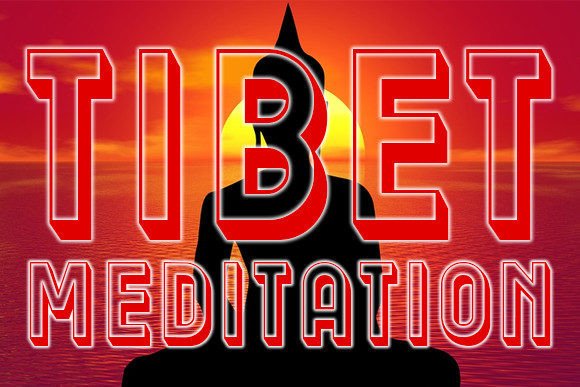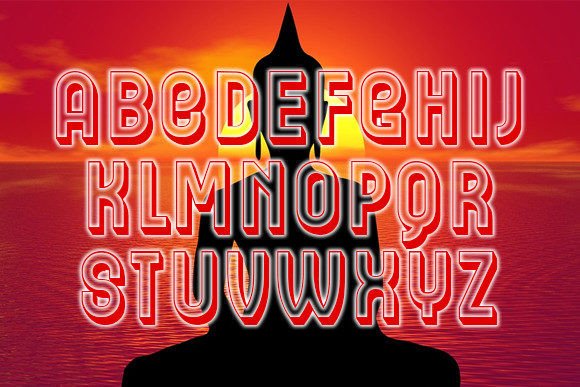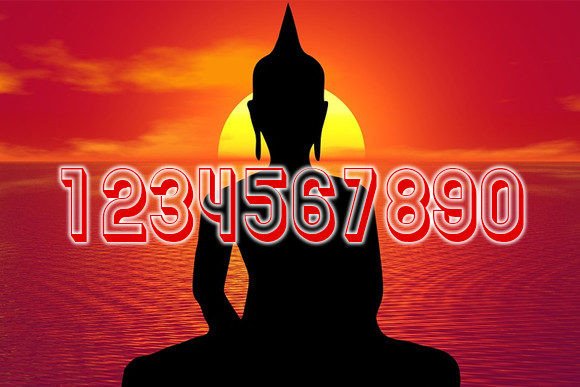
Unleash Your Creativity with the Majestic Ajanta Font
Have you ever found yourself stuck in a creative rut, staring blankly at your screen, trying to come up with the perfect design? It’s a feeling we’ve all experienced at some point, but it’s exactly this moment that sparked the creation of the breathtaking Ajanta Font. This elegant 3D display font is designed to elevate your designs and leave a lasting impression.
Whether you’re working on a poster, flyer, or t-shirt design, the Ajanta Font is the perfect tool to help you take your creative vision to the next level. Its unique blend of style and sophistication makes it an invaluable asset for designers looking to make a statement. With the Ajanta Font, you’ll be able to add a touch of luxury and sophistication to your designs, setting you apart from the crowd.
Ajanta Font Key Features
- Font Family: Ajanta is a sans-serif font family with multiple weights and styles, including regular, bold, italic, and bold-italic.
- Unique Characteristics: Ajanta’s distinctive features include its clean and modern design, geometric shapes, and a high x-height, making it highly legible and suitable for digital and print applications.
Ajanta Font Review
I’ve had the chance to work with the Ajanta font, and I must say it’s a unique find. Let’s break down what I think works well and what doesn’t.
- Unique Style: Ajanta font brings a distinctive touch to any design project. Its intricate details and organic feel set it apart from more common fonts.
- Legibility: Despite its complex design, the font is surprisingly easy to read, especially in larger sizes.
- Language Support: Ajanta font offers a wide range of language support, making it a versatile choice for global projects.
- Difficulty in Customization: While the font is aesthetically pleasing, making significant changes to its design can be challenging.
- Not Ideal for Small Text: Due to its intricate details, the font can become cluttered when used in smaller sizes, making it harder to read.
Overall, the Ajanta font is a great addition to any designer’s toolkit, but it’s essential to use it thoughtfully and consider its limitations. When used correctly, it can add a touch of elegance and sophistication to any project.
Tips for Getting the Most Out of Ajanta Font
Use the Ajanta Font to add a touch of elegance and sophistication to your designs.
Combine the Ajanta Font with other fonts to create a unique and eye-catching design.